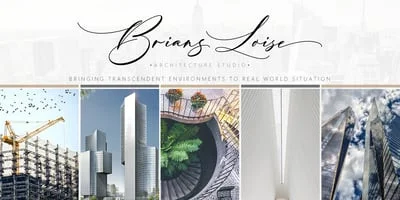
Melissa Gweny Font
Melissa Gweny Font is perfect for personal lifestyle branding, wellness coaching materials, feminine beauty campaigns, handcrafted artisan packaging, gentle wellness centers, natural skincare branding, mindful living publications, soft romantic invitations, boutique spa identity, and nurturing applications that celebrate authentic feminine grace and holistic well-being.
What makes Melissa Gweny Font truly exciting is its gentle balance of personal warmth and mindful sophistication that creates an instantly calming and nurturing typographic presence for wellness-focused communications. This exceptional typeface embodies the essence of holistic beauty with its flowing letterforms and caring character that convey both inner peace and natural elegance. The font's wellness-inspired personality and gentle authenticity make it perfect for brands seeking to communicate self-care, mindful living, and the transformative power of embracing natural beauty and personal well-being through compassionate and authentic lifestyle choices.
The Melissa Gweny Font family includes multiple weights and styles: Light, Regular, Medium, Bold, and Gentle variations designed for maximum wellness appeal. Each family member maintains the distinctive nurturing character while offering flexibility for diverse wellness applications and mindful branding systems. The comprehensive character set supports gentle typography needs and wellness design elements, making it suitable for international well-being communications.
When you choose Melissa Gweny Font, you're selecting a typography sanctuary that delivers authentic wellness wisdom and gentle feminine strength to every mindful project. This nurturing typeface excels in applications where personal care and holistic beauty are essential, delivering exceptional emotional comfort while maintaining authentic wellness credibility. Whether you're designing wellness brands, personal coaching materials, beauty campaigns, or mindful lifestyle content, this font provides the gentle sophistication and nurturing presence that resonates with individuals who appreciate authentic self-care, natural beauty, and the peaceful journey toward personal well-being and mindful living.